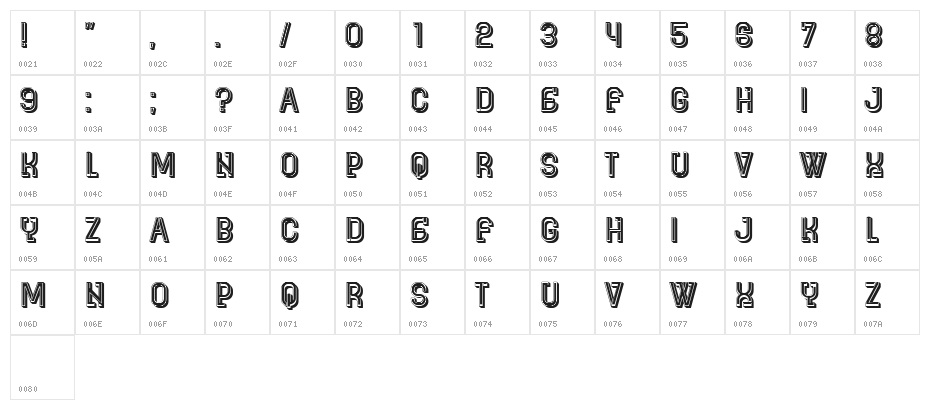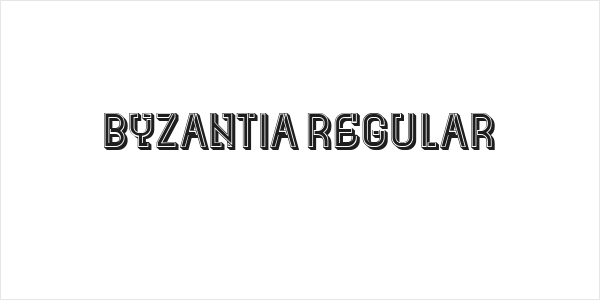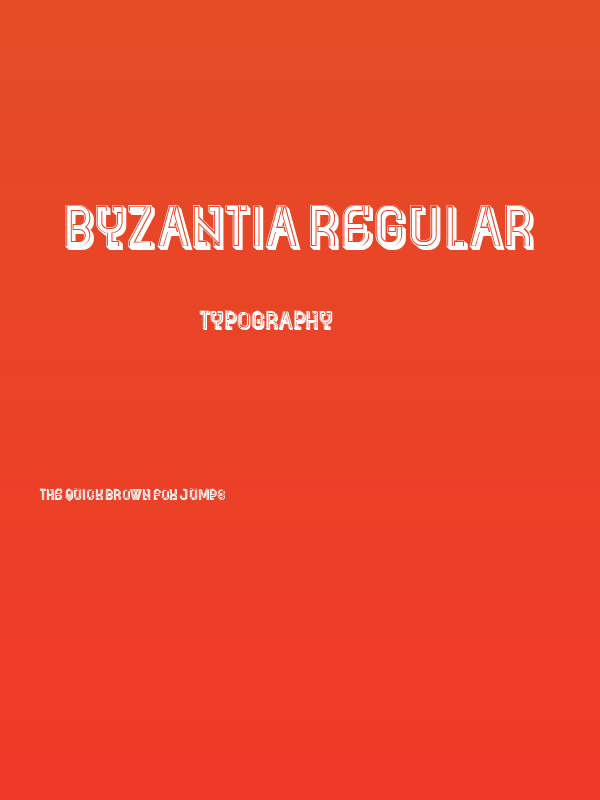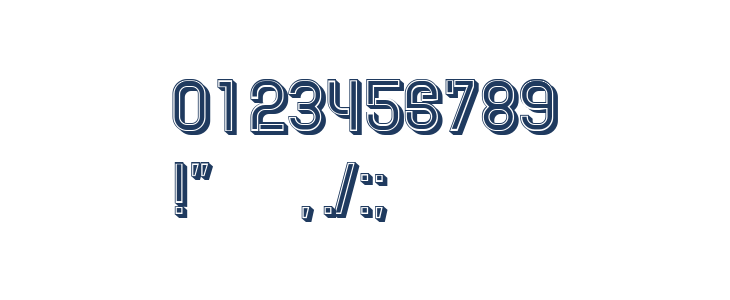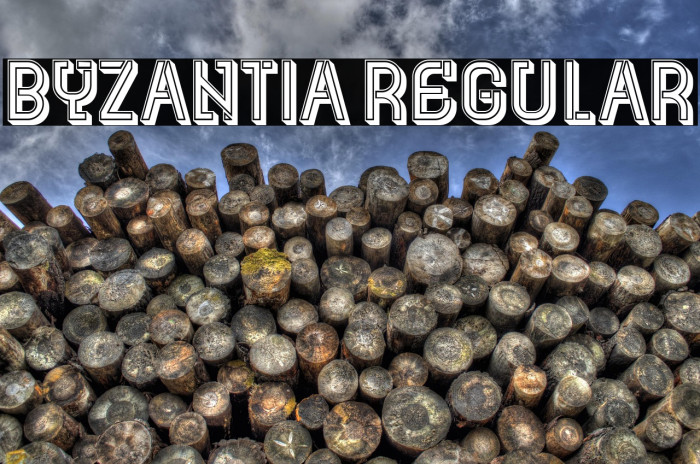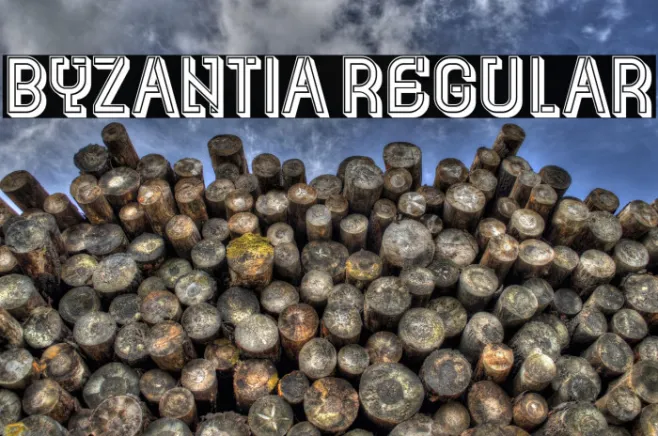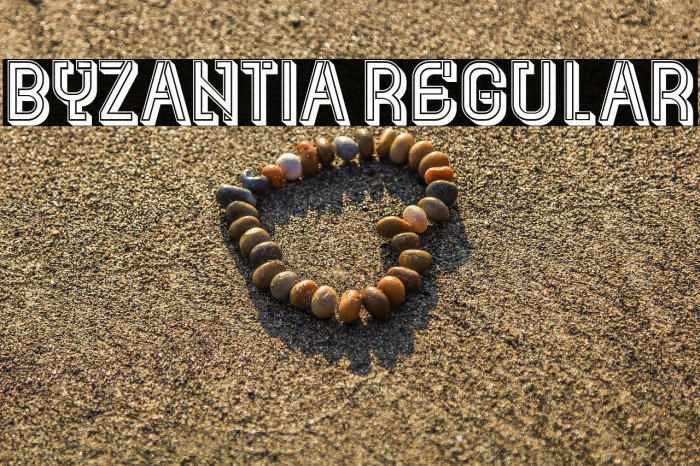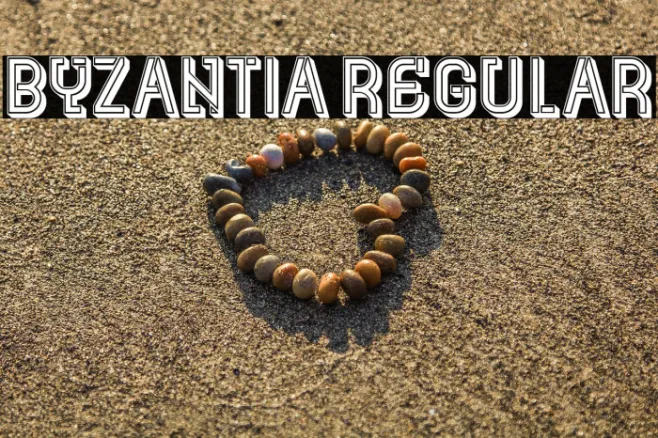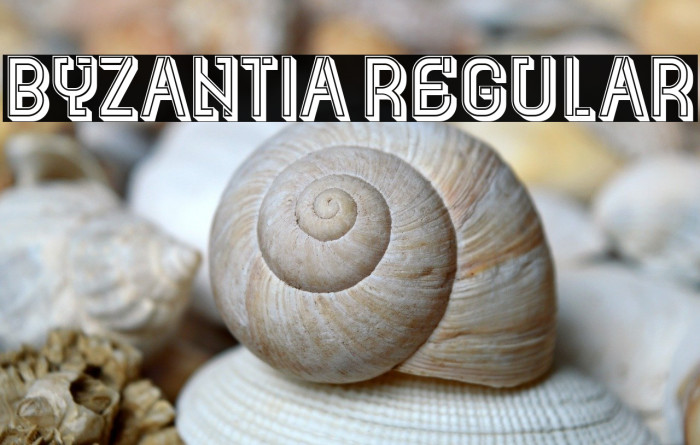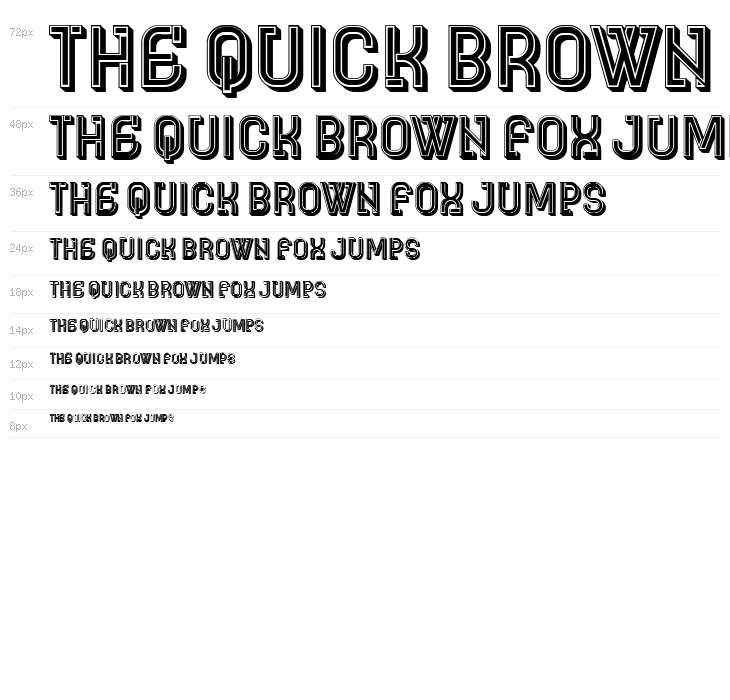
Byzantia Regular Font
Byzantia Regular Description
This font features a bold and striking design with a three-dimensional effect, achieved through a combination of thick outlines and inner lines that create a layered appearance. The characters are uppercase and numerals, with a geometric structure that gives them a modern and industrial feel. The font's unique style is characterized by its boldness and the illusion of depth, making it stand out in any design. The spacing between characters is normal, allowing for clear readability despite the complex design. The font's high contrast between the thick and thin lines adds to its visual impact, making it suitable for attention-grabbing headlines and titles.
| Proposed Projects | Ideal for posters, logos, branding, and any design requiring a bold, eye-catching typeface. |